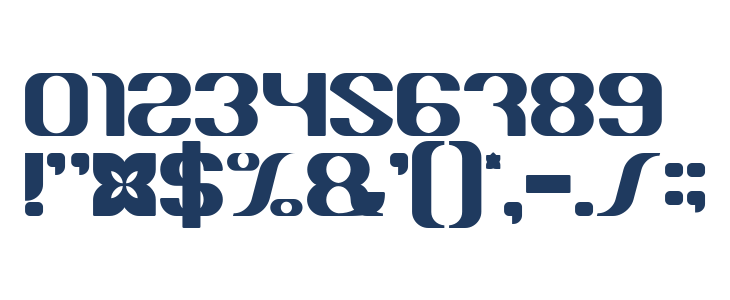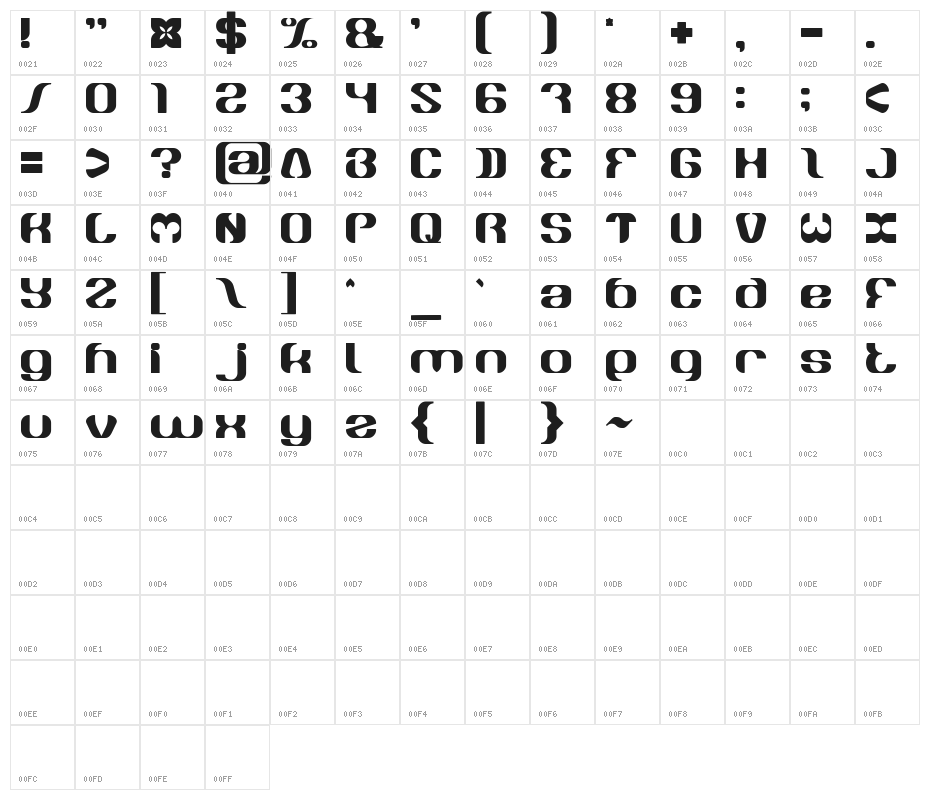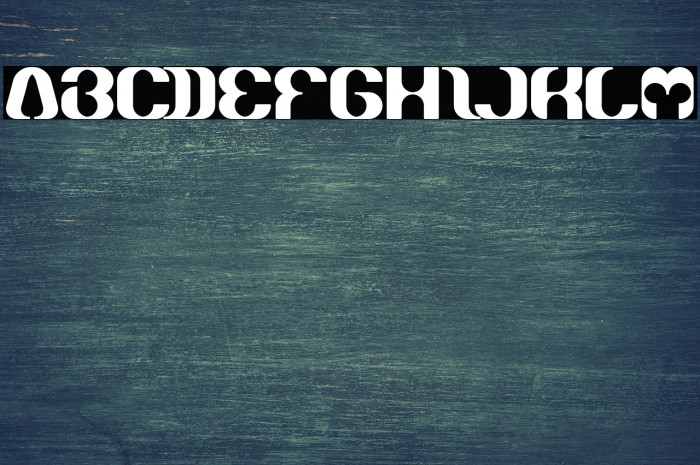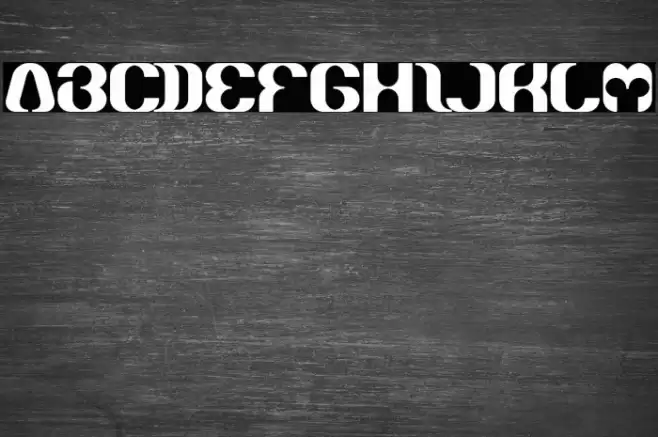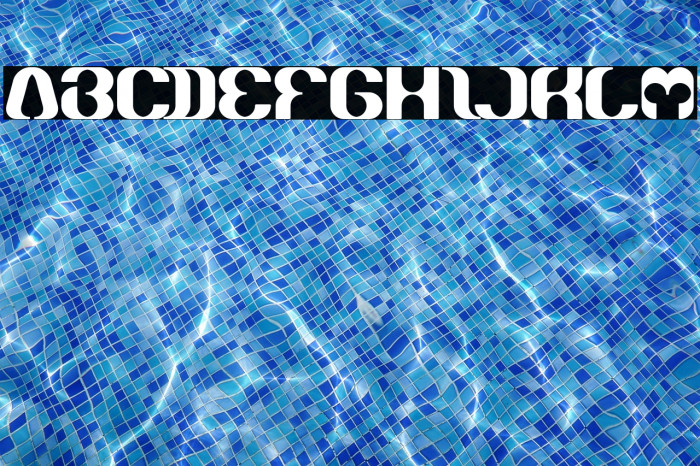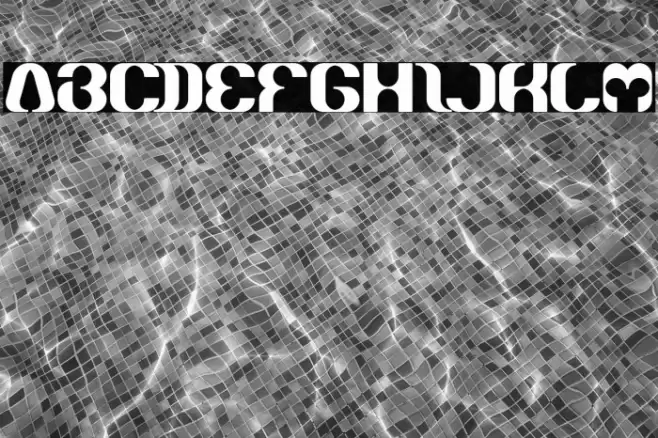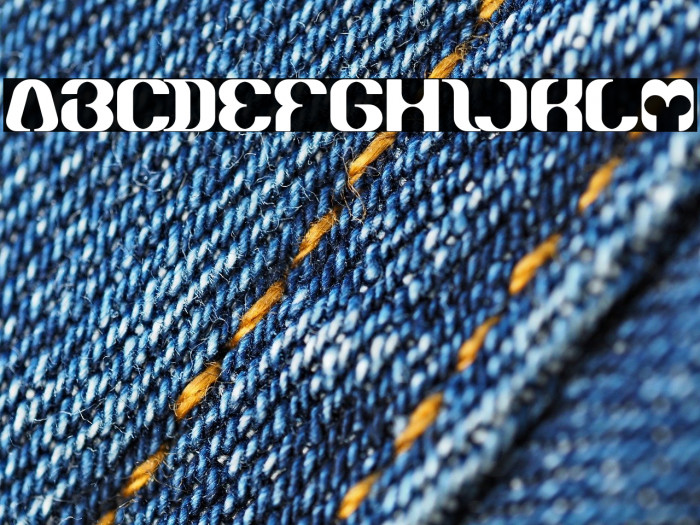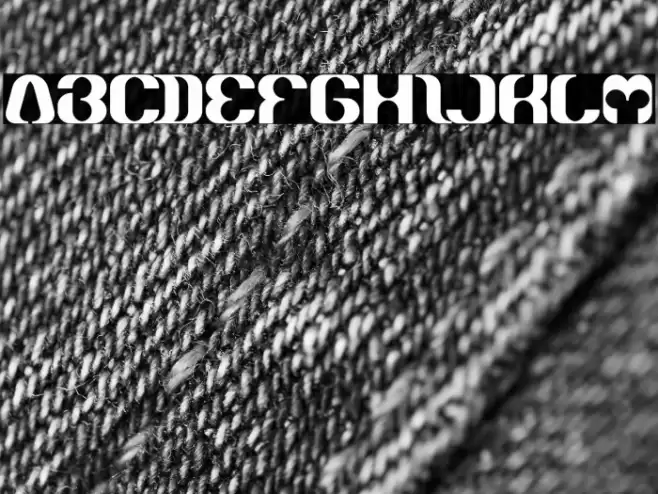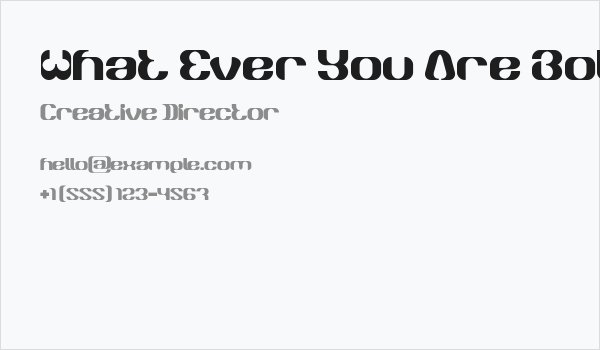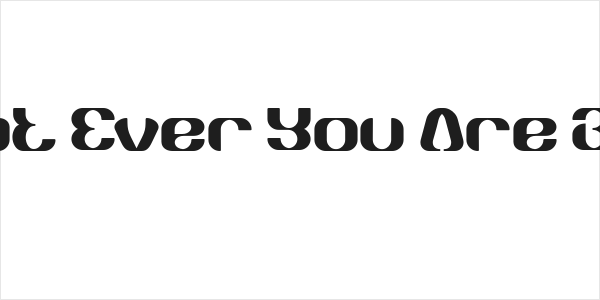
What Ever You Are Bold Font
What Ever You Are Bold Description
This bold, decorative font features a unique and modern design with a strong visual impact. The characters are crafted with a combination of thick and thin strokes, creating a high contrast that enhances readability while maintaining a distinct style. The uppercase and lowercase letters share a cohesive design, with rounded edges and geometric shapes that give the font a futuristic feel. The numbers and special characters are equally stylized, ensuring consistency across all text elements. This font is ideal for projects that require a bold statement and a contemporary aesthetic.
| Proposed Projects | Ideal for branding, posters, headlines, and any design project that requires a strong visual impact. |